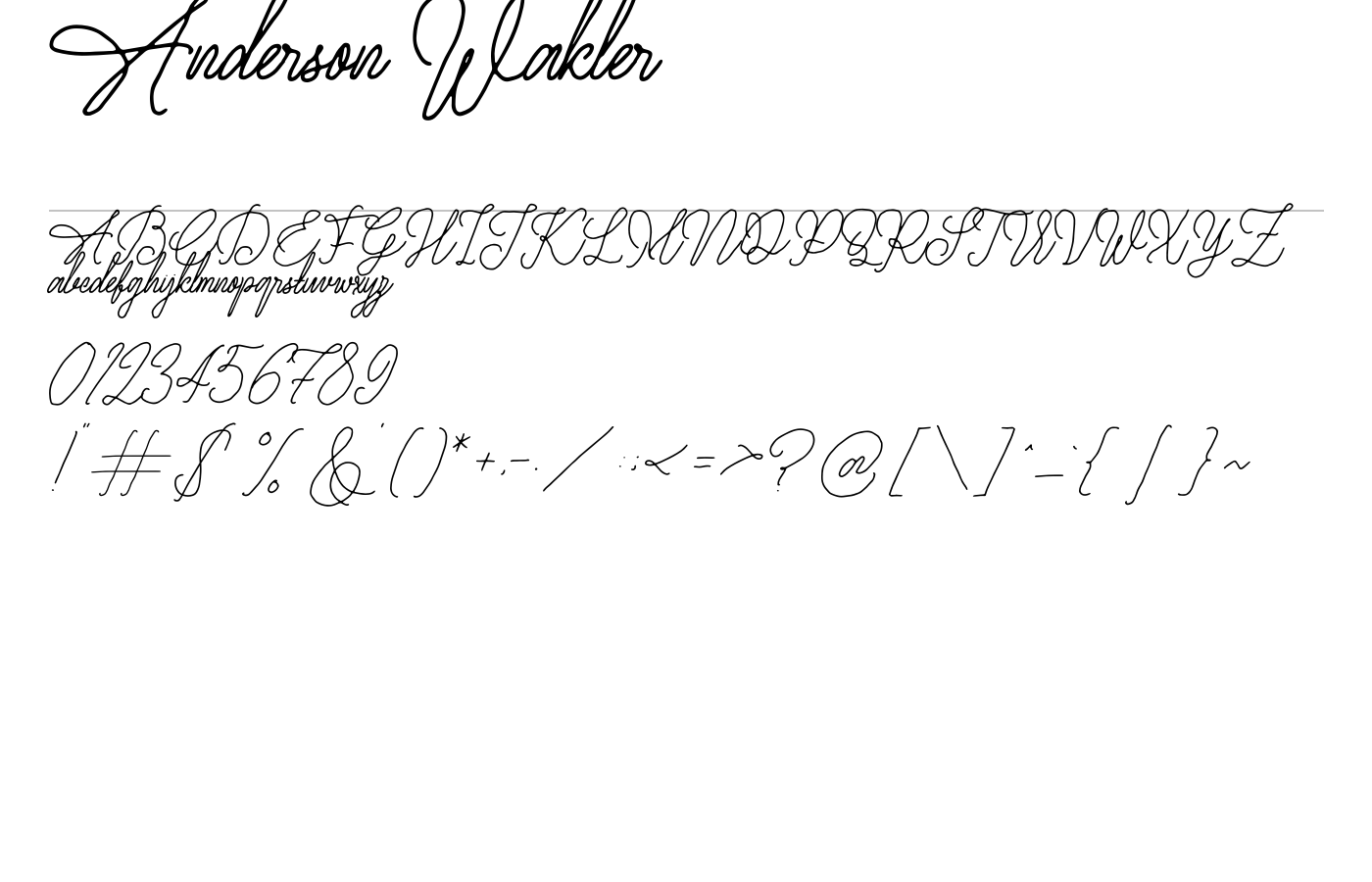
Anderson Wakler is an elegant script font with a delicate, handwritten style that exudes sophistication and grace. Its thin, flowing strokes and refined letterforms make it perfect for luxury branding, wedding invitations, and upscale editorial projects where a personal yet polished touch is desired. This font works best in display uses where its intricate details can shine and create a timeless, artistic impression.
Anderson Wakler Font
About Anderson Wakler Font
| Font family | Anderson Wakler Font |
| Designer | Ghazi Humam Fauzan |